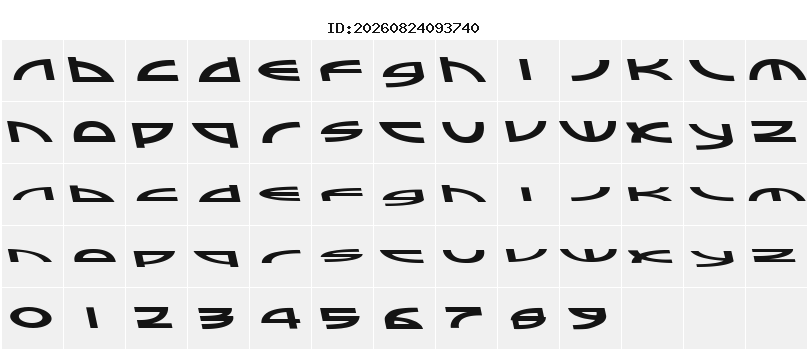
Sampler Preview
• Font Name: Sampler
• Font ID: 1.000;pyrs;Sampler-A-Italic
• Full Font Name: Sampler-A-Italic
• Version: Macromedia Fontographer 4.1
• PostScript Name: Sampler-A-Italic
• Character Count: 201
About Sampler.ttf
Sampler.ttf is a modern, elegant sans-serif font designed for ultimate readability and visual harmony. Perfect for branding, headlines, web design, and print materials.